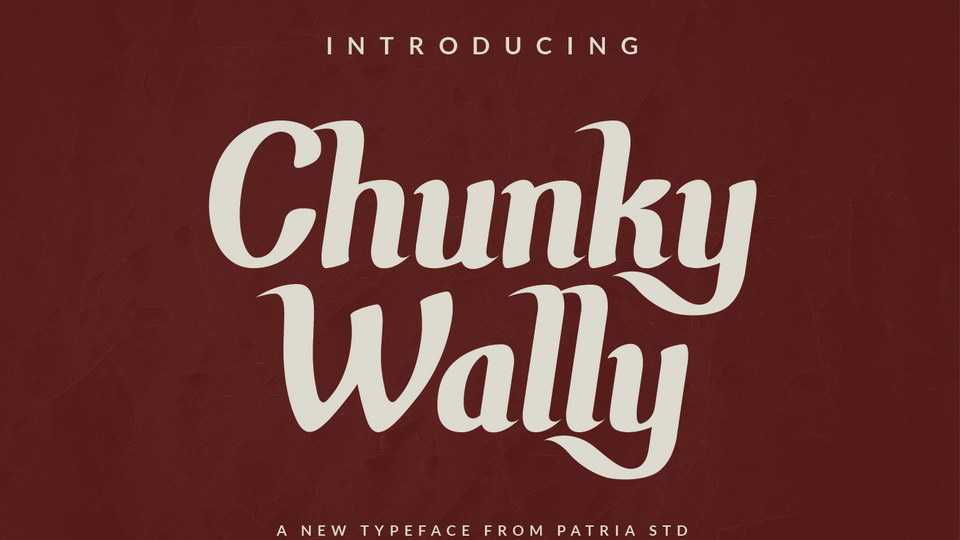
Download Chunky Wally font, a vintage script typeface with beautiful alternate characters to support your brand/project. Chunky Wally is perfect for projects such as logos and branding, invitation, stationery, wedding designs, special events or anything.